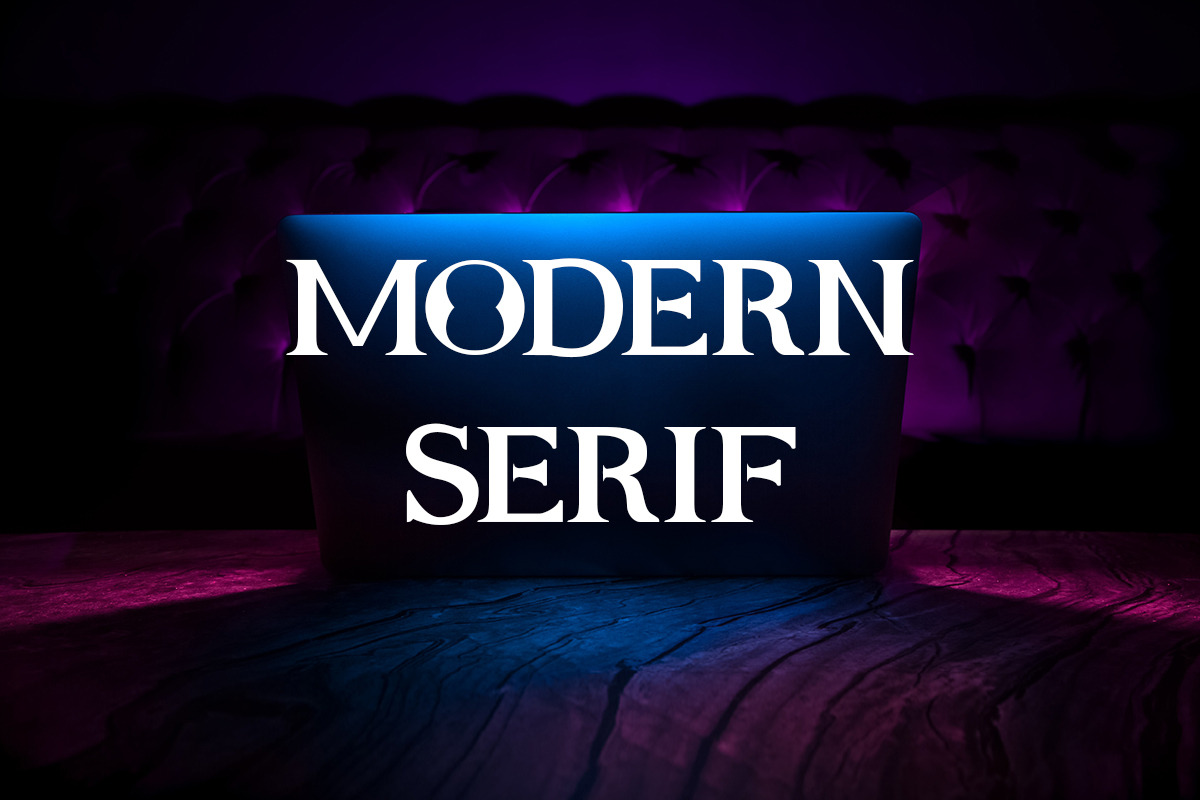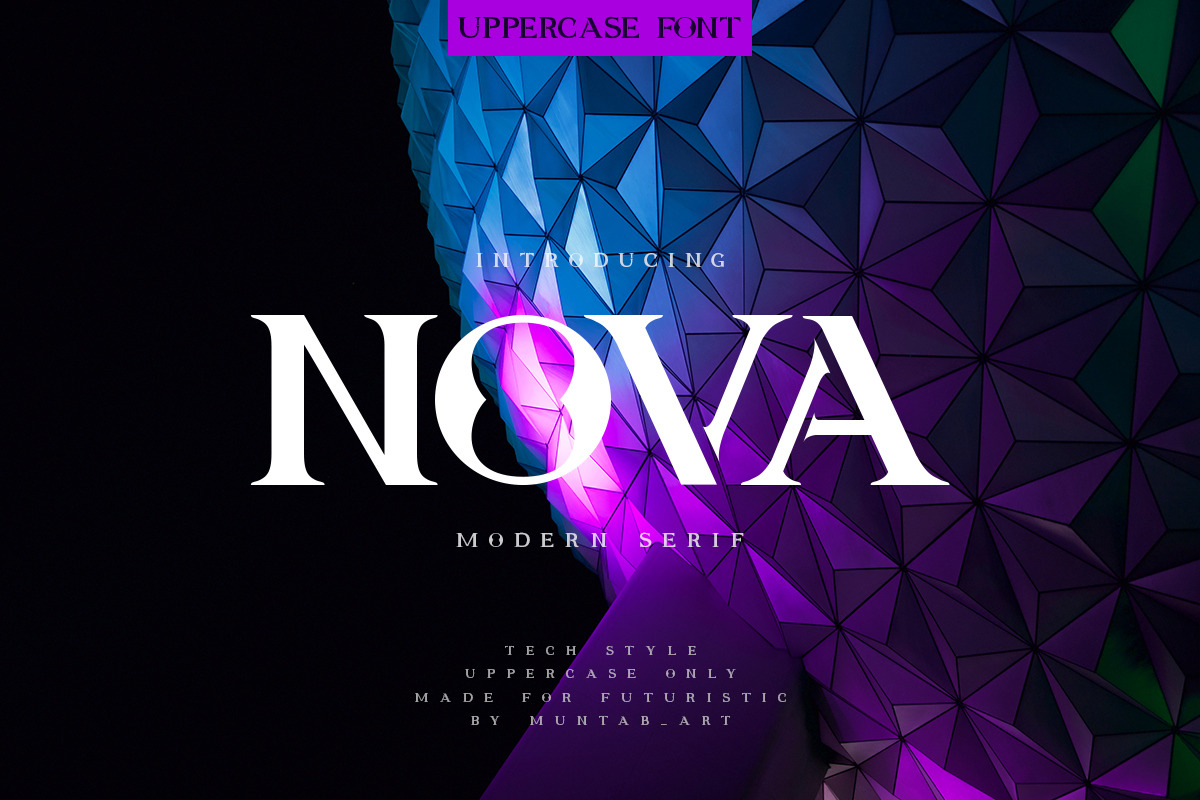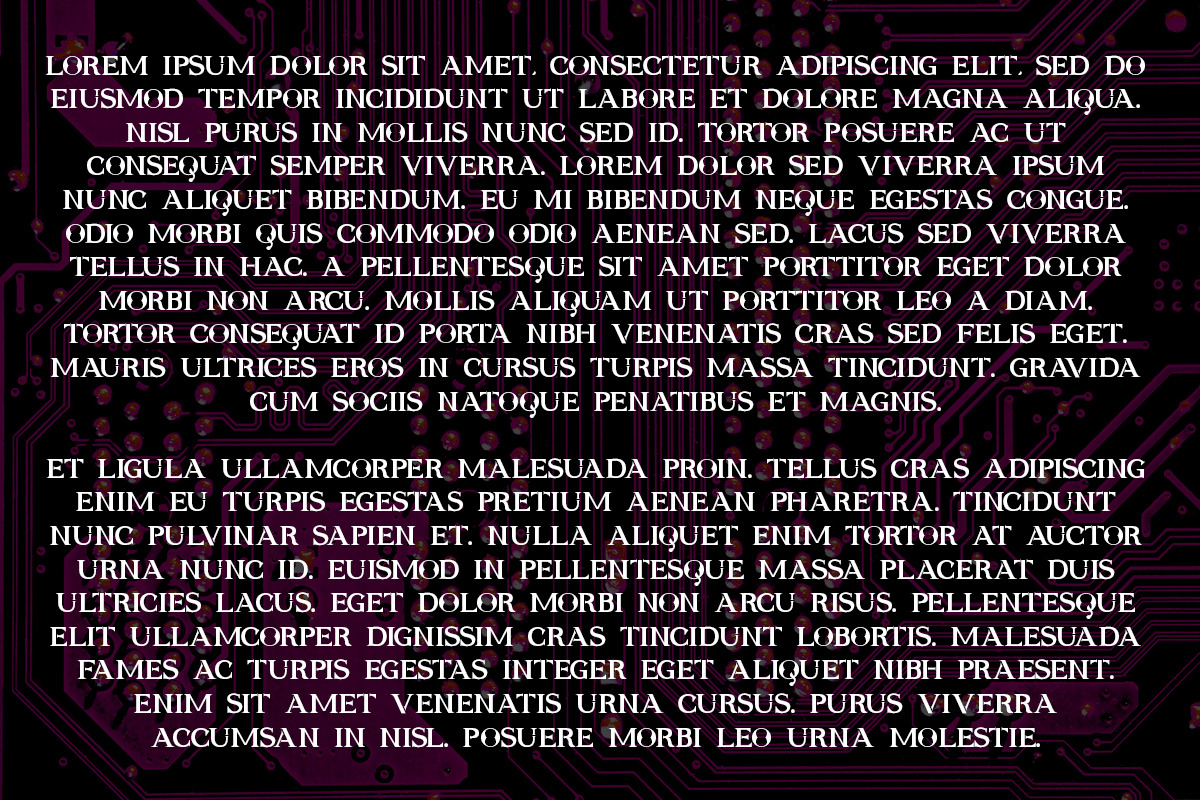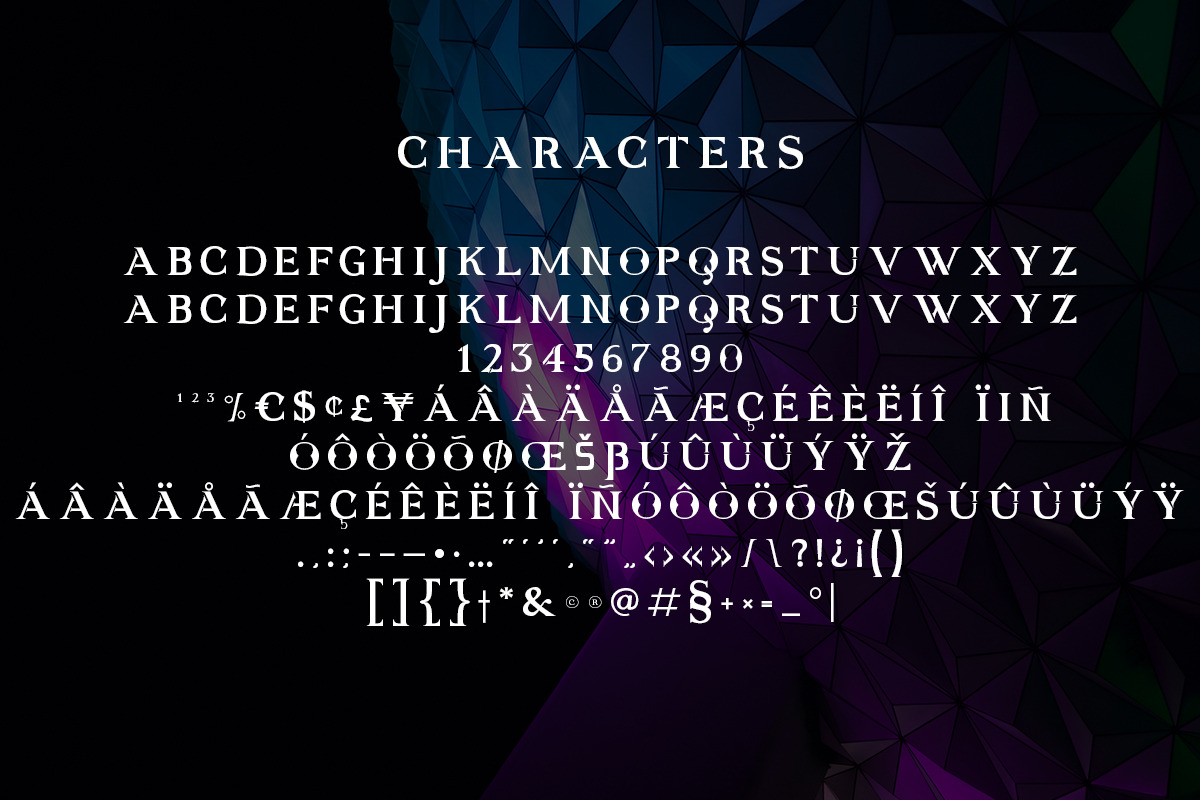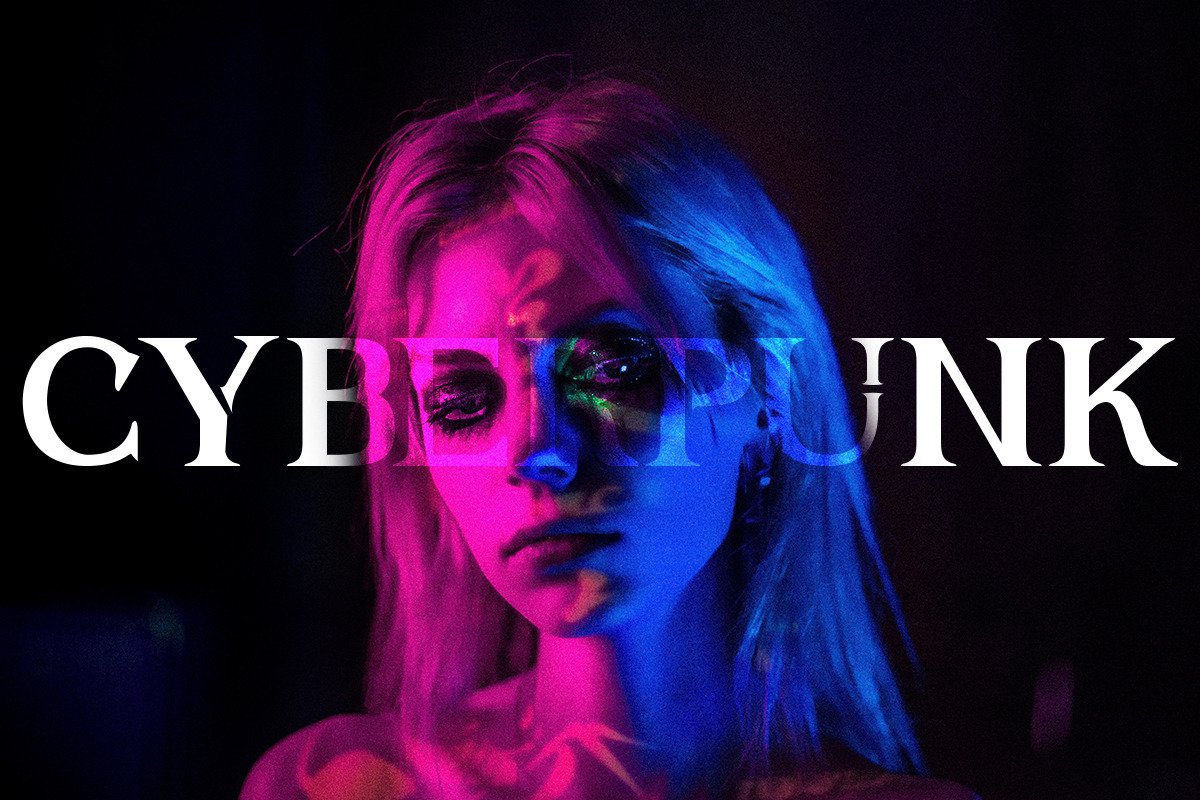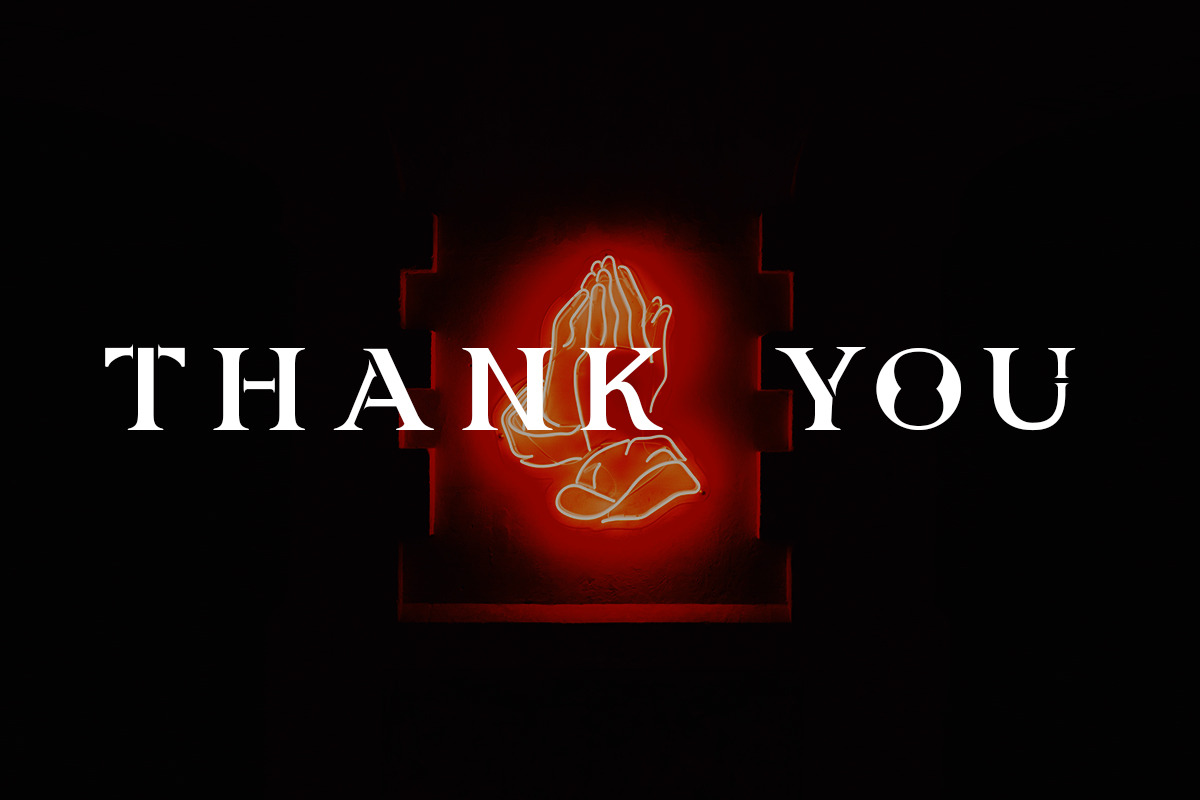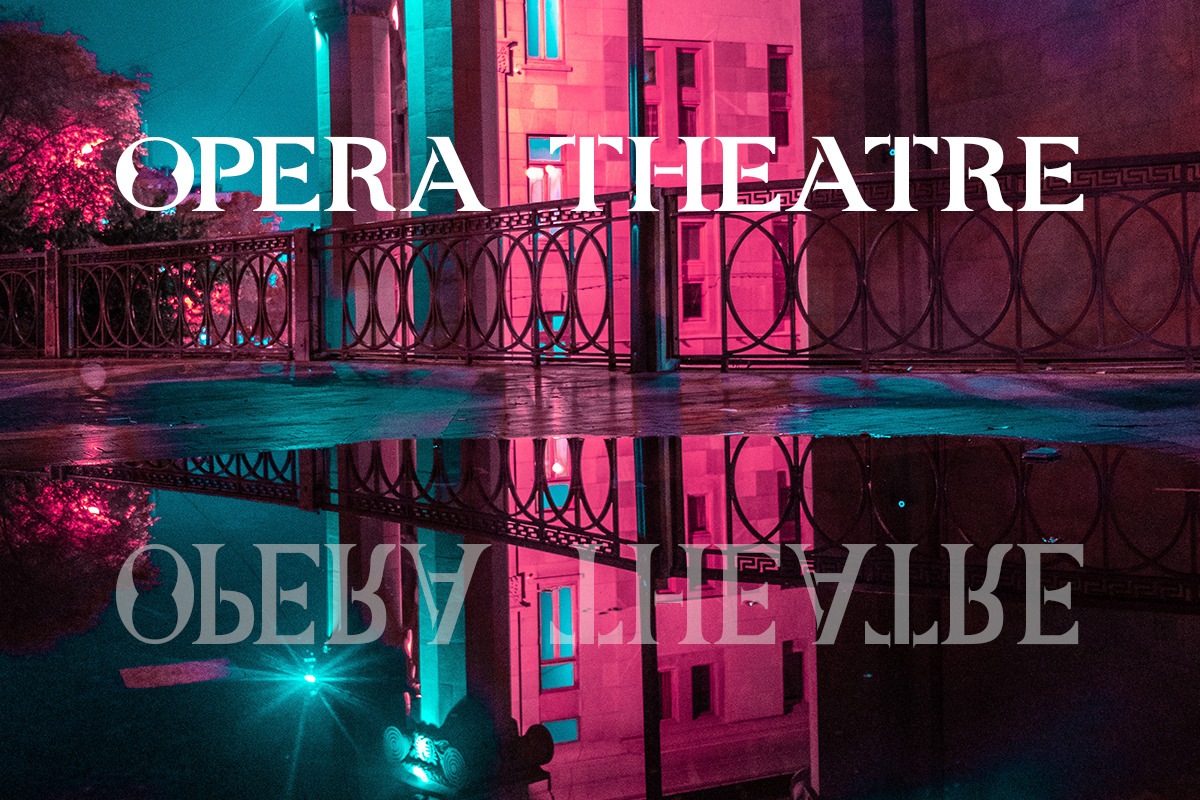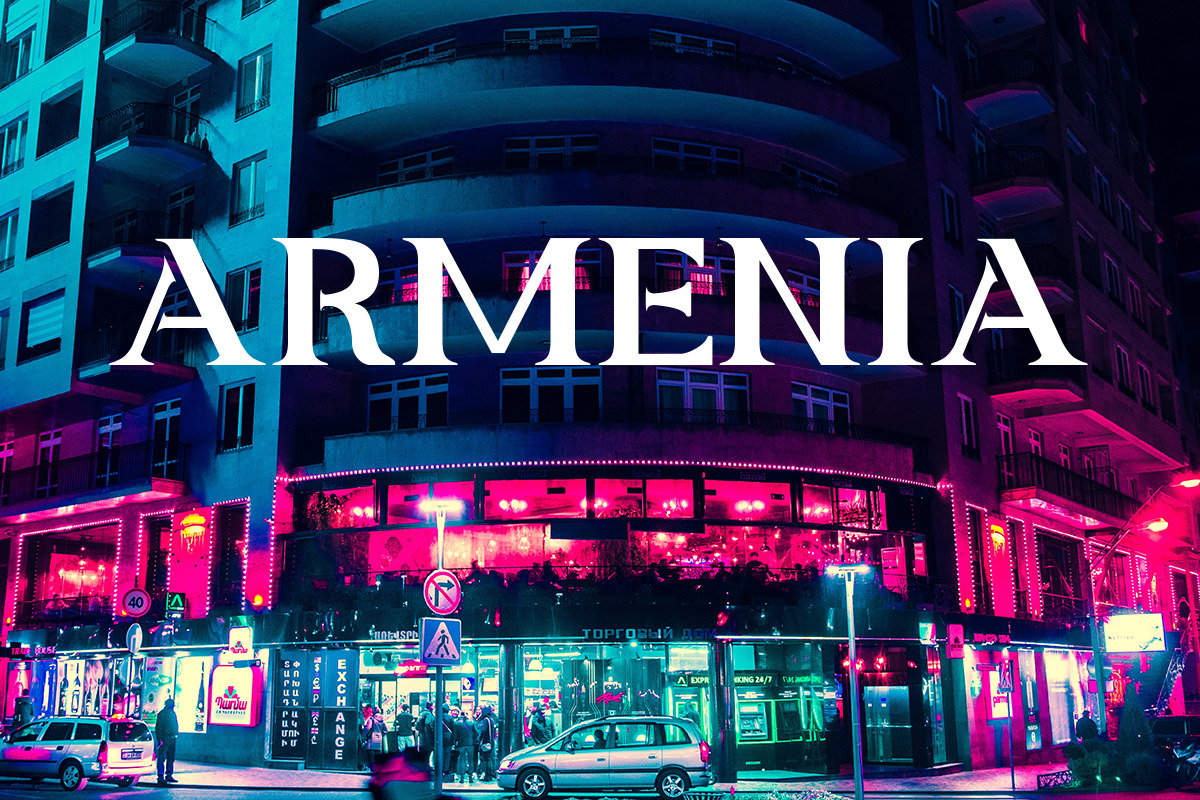
Nova | Future Font
Nova fonts includes uppercase letters, numerals, a large range of punctuation. sans serif font with modern style. Created for poster, web design, branding, illustrations, badges and some other works.